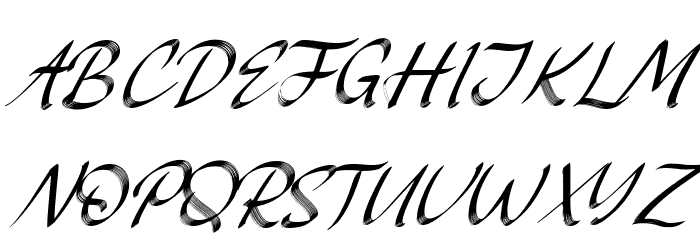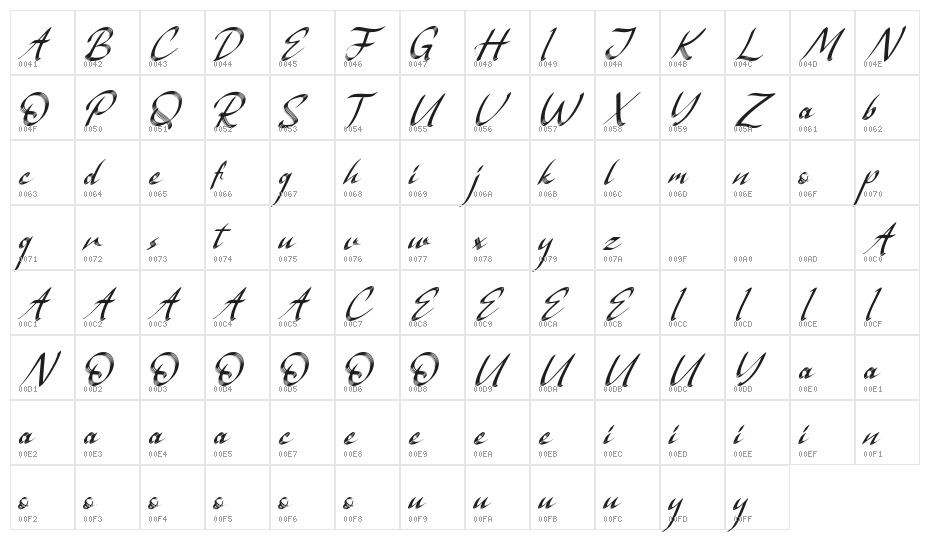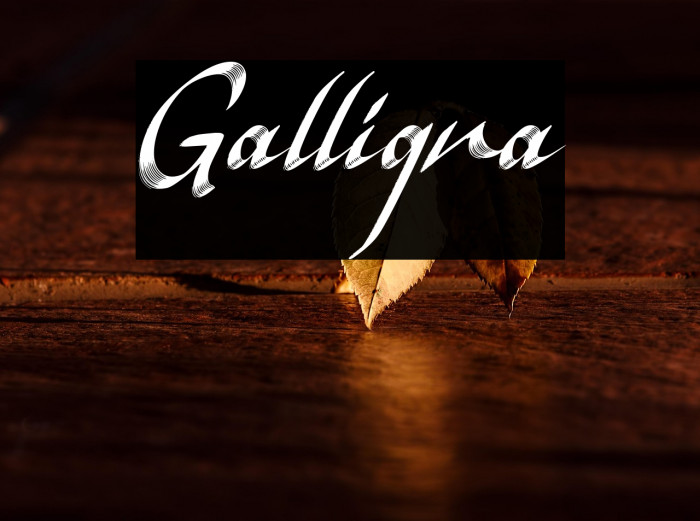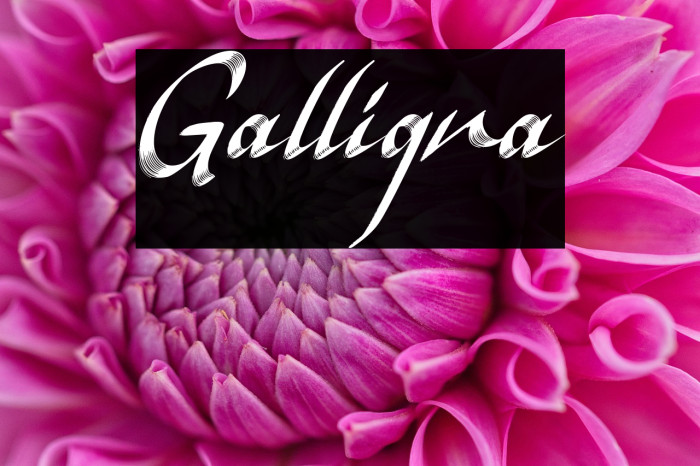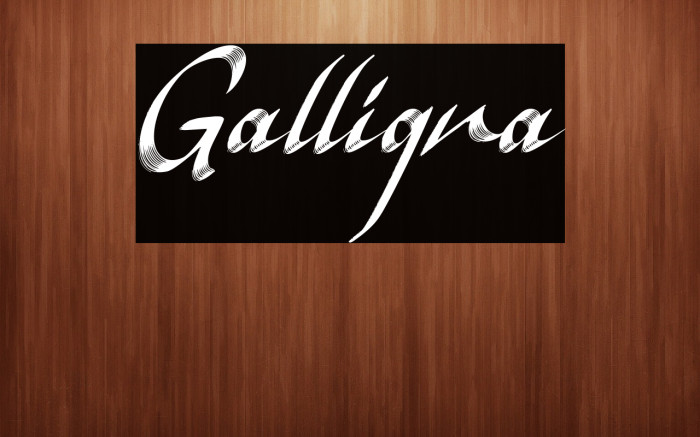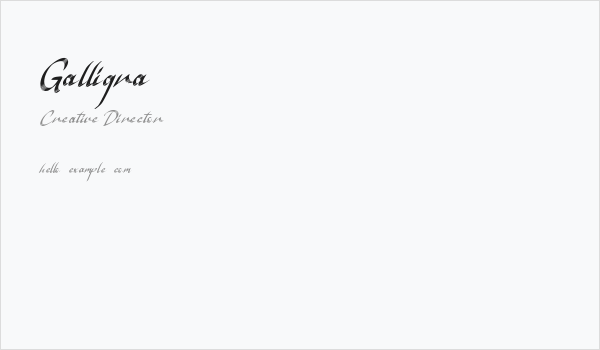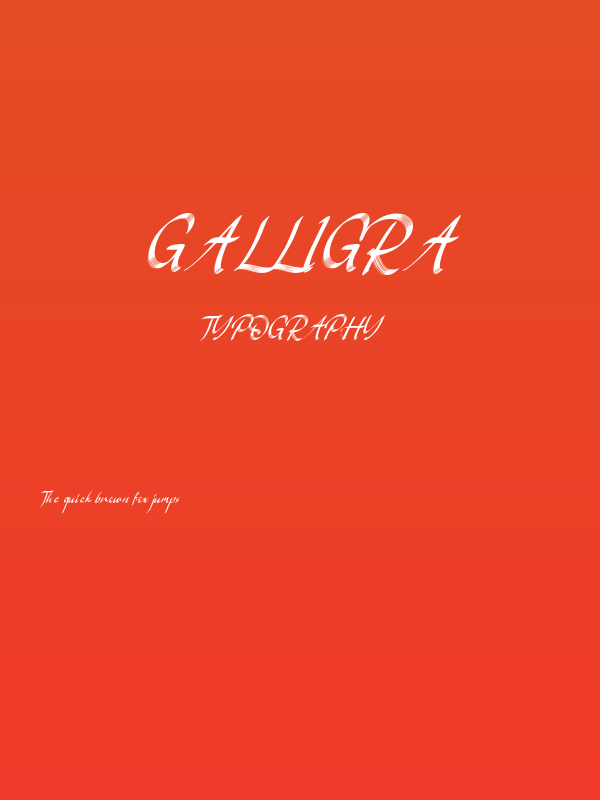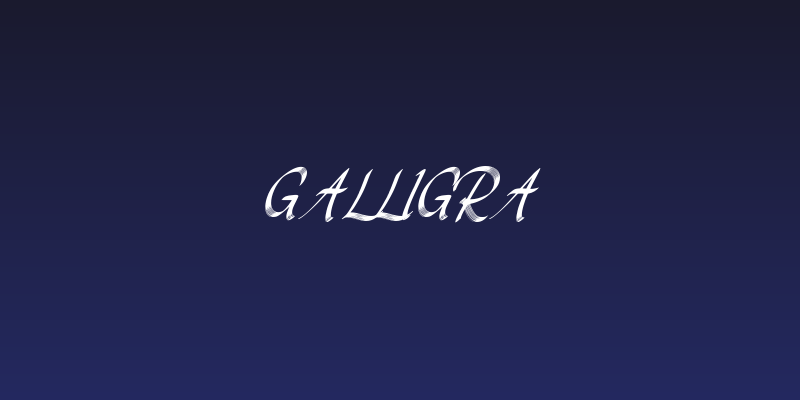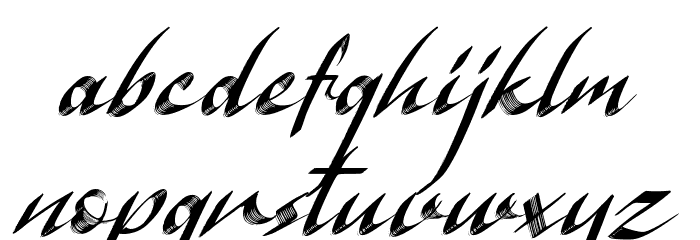
Galligra Font
Galligra Description
This font exudes elegance and sophistication with its flowing, cursive script style. The characters are gracefully connected, creating a sense of fluidity and motion. Each letter is adorned with subtle, artistic strokes that add a touch of flair and personality. The font maintains a consistent slant, enhancing its dynamic appearance. The intricate detailing within each character gives it a luxurious feel, making it suitable for high-end branding and design projects. Its unique style is both eye-catching and memorable, perfect for making a statement.
| Proposed Projects | Ideal for wedding invitations, luxury branding, elegant logos, and high-end product packaging. |